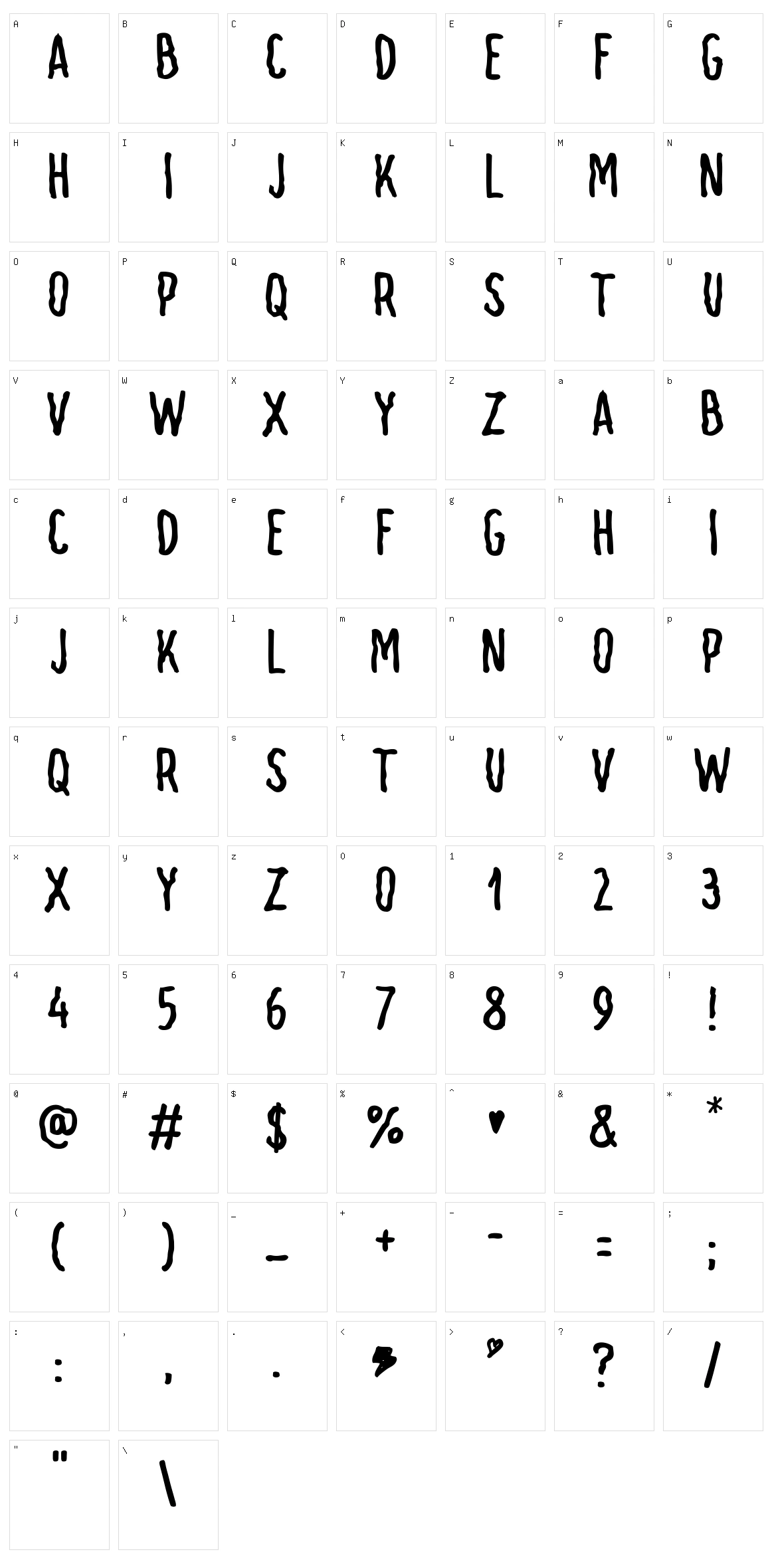
The free font JIT is carefully designed by Jit Martinez, showcasing a thoughtful balance of creativity and usability and falls under the Script font style. When you download the ZIP file, it contains only 9.83 KB of font files, making it lightweight and quick to download. Please review the license details below to understand permitted usage and distribution rights. If license information is not available, we recommend using this font for personal projects only or contacting the author directly for commercial usage permissions.